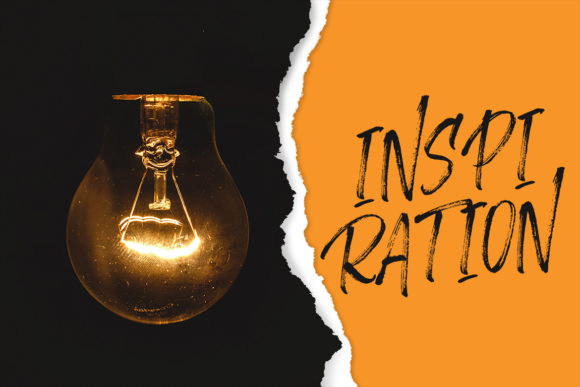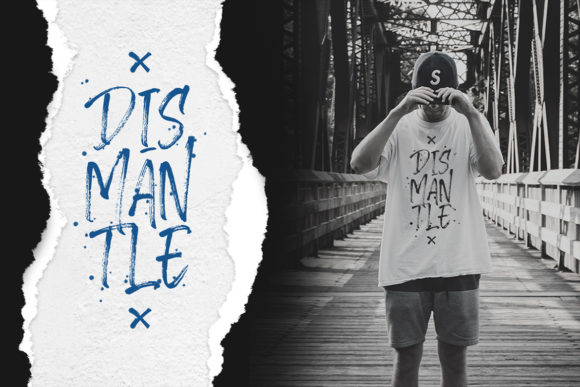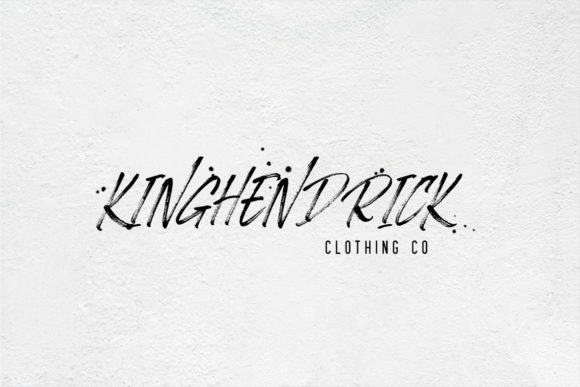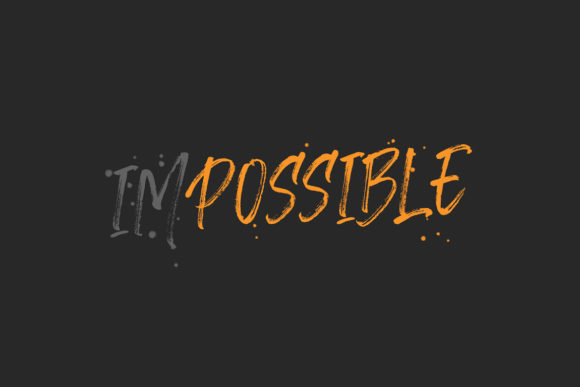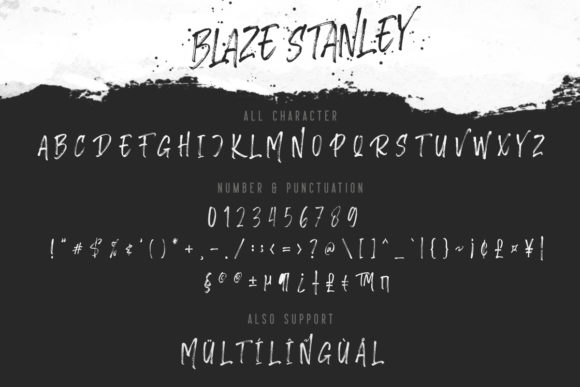
Blaze Stanley Font
About Blaze Stanley Font
Blaze Stanley is a casual, fun handwritten font, created by using a brush pen. Clean and a little bit quirky, this font is the perfect fit for all of your logos, branding, social media, and crafty DIY projects.